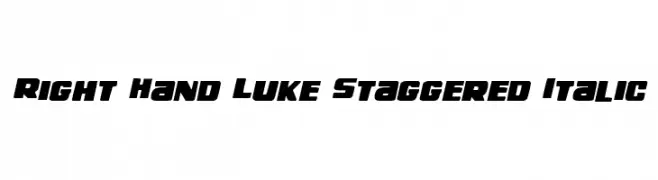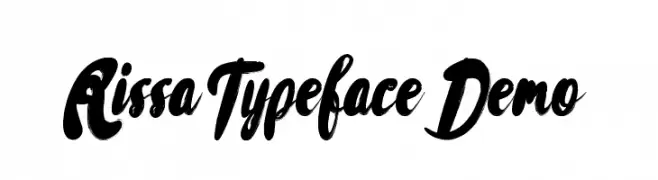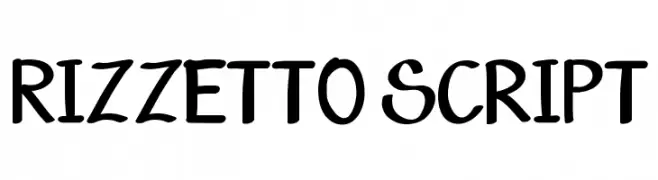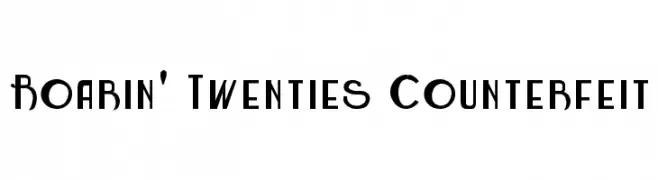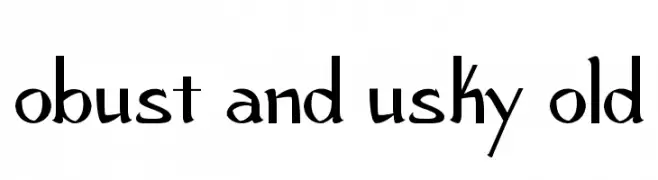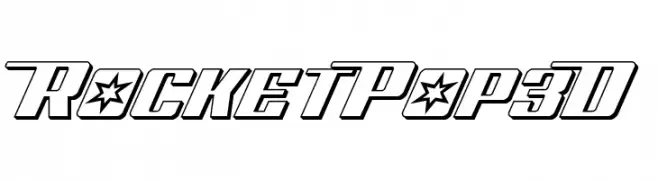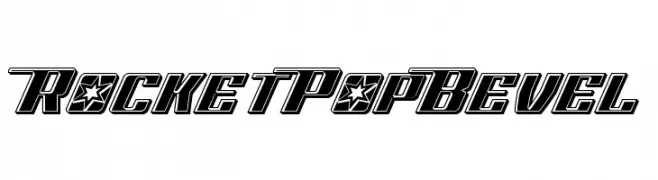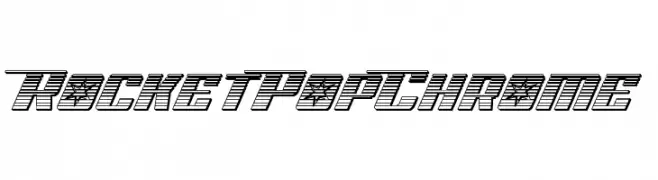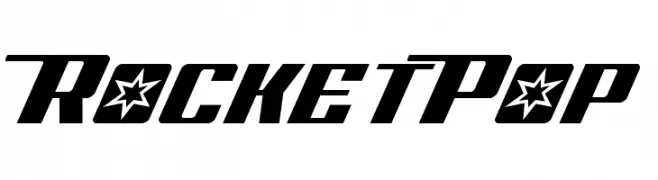
( Iconian Fonts - Daniel Zadorozny - www.iconian.com )
A bold, italicized font with a staggered, dynamic style and strong geometric elements.
( Maulana Creative - Gilang Maulana - maulanacreative.net/ )
A bold, expressive script font with a hand-painted, brush-like appearance.
( Marcelo Rizzetto )
A playful and bold script font with smooth, rounded letterforms.
( James Barnardo )
A bold, decorative font with a vintage 1920s flair.
( Laura Kammermann )
A bold, robust font with a modern yet classic style, perfect for impactful designs.
( Jaycobs - Jay Cobs - www.jaycobs.fr )
A bold slab serif font with strong, authoritative characters and pronounced serifs.
( Iconian Fonts - Daniel Zadorozny - www.iconian.com )
A bold, angular font with a futuristic and dynamic style, featuring star motifs.
( Iconian Fonts - Daniel Zadorozny - www.iconian.com )
A bold, 3D outlined font with a dynamic and futuristic style.
( Iconian Fonts - Daniel Zadorozny - www.iconian.com )
A bold, beveled font with star motifs and a retro-futuristic style.
( Iconian Fonts - Daniel Zadorozny - www.iconian.com )
A bold, futuristic font with a dynamic striped pattern.